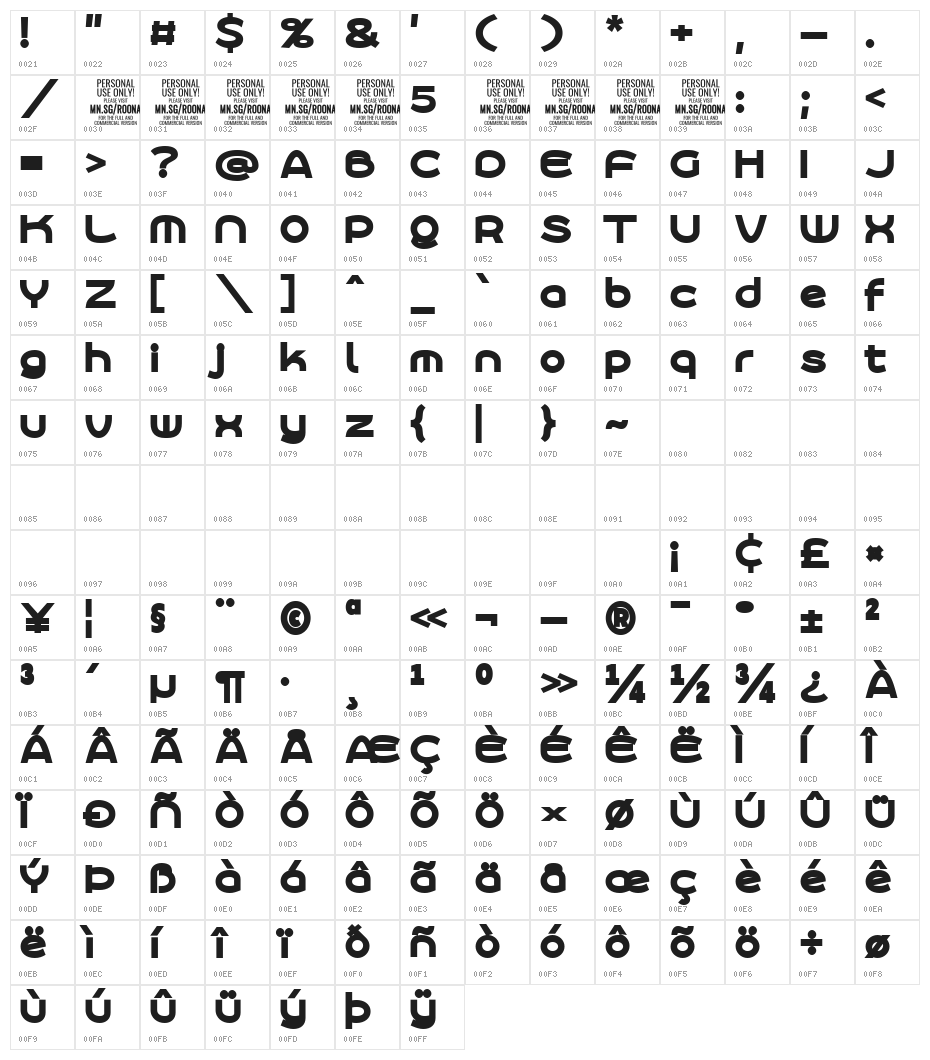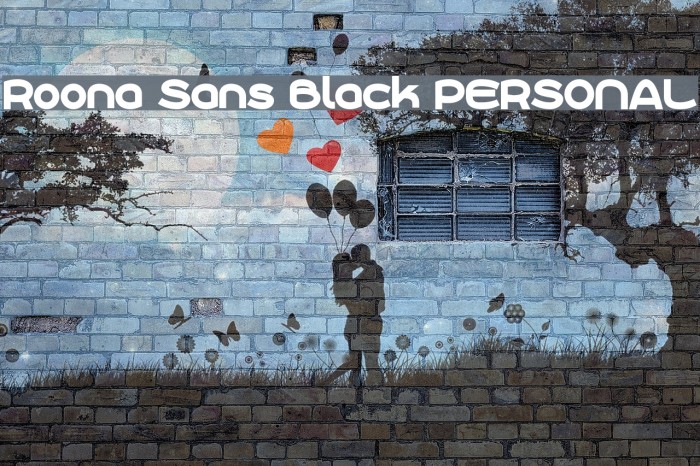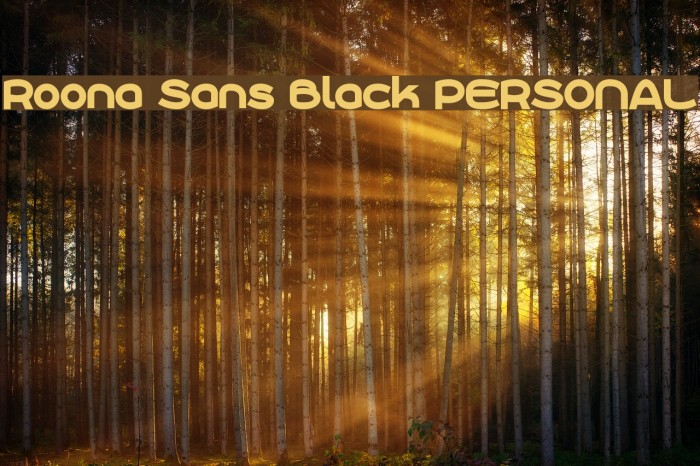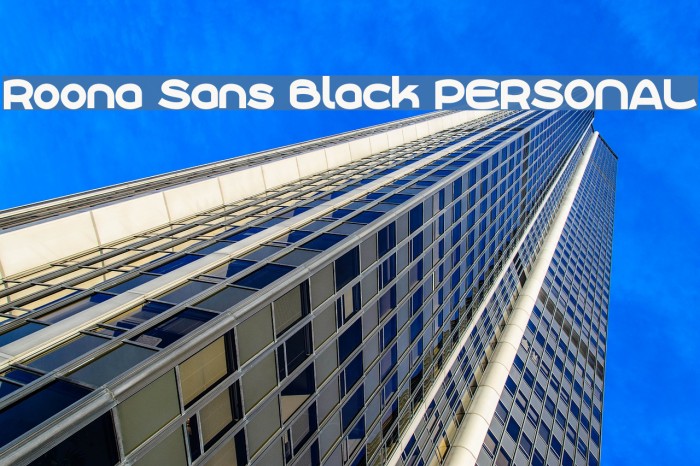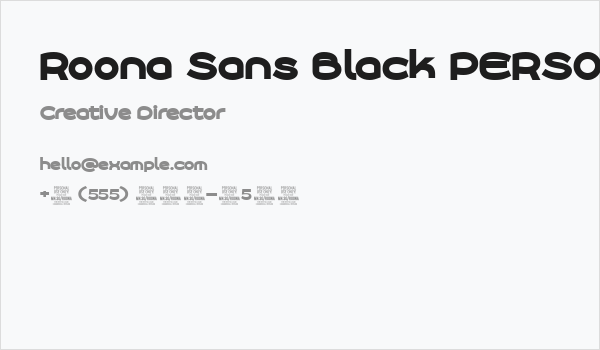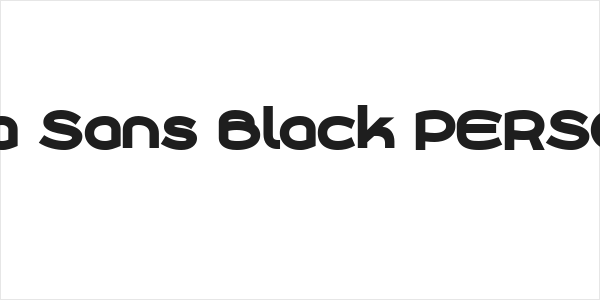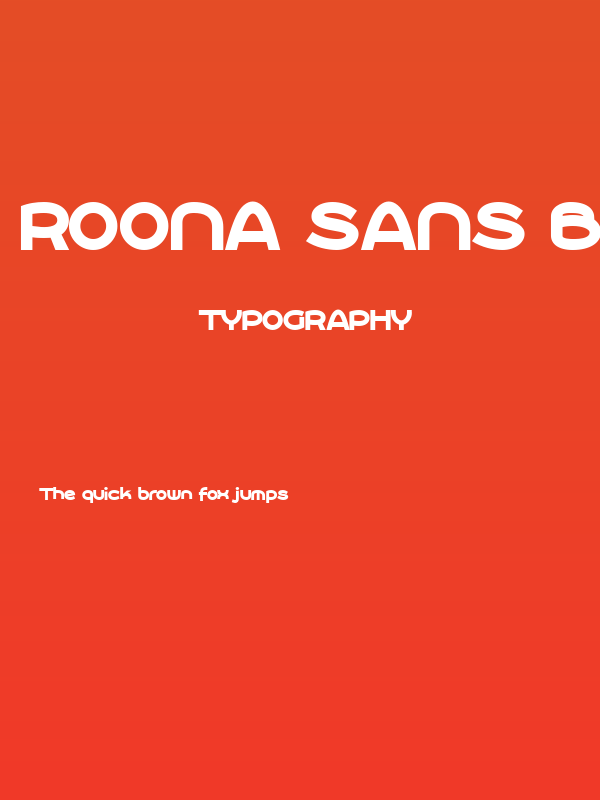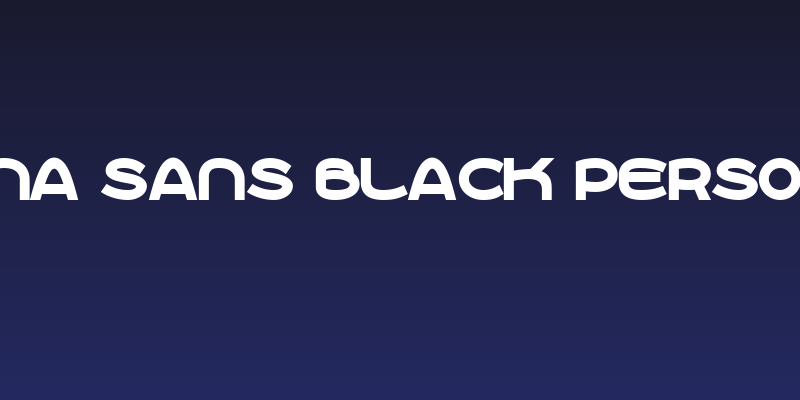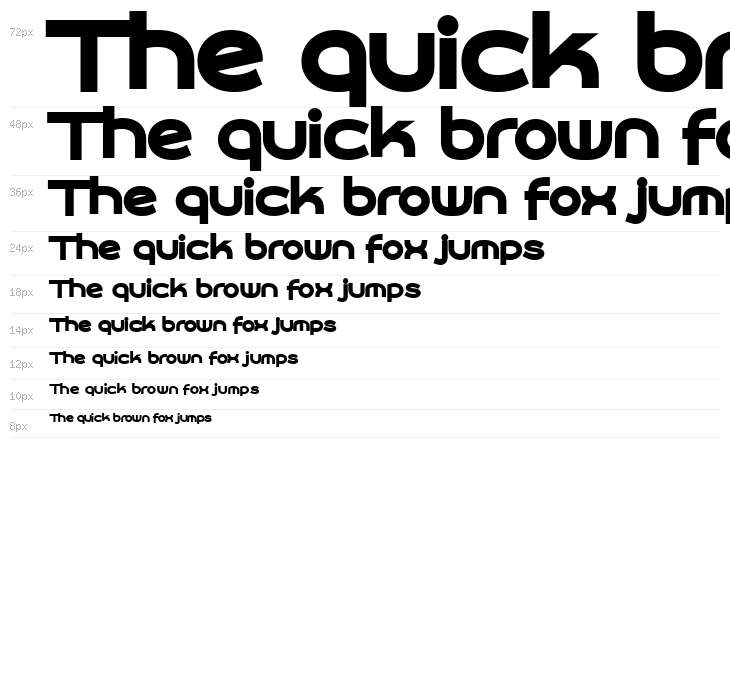
Roona Sans Black PERSONAL Font
Roona Sans Black PERSONAL Description
This font features a bold and modern design with a geometric and slightly futuristic feel. The characters are crafted with a uniform thickness, creating a strong and cohesive appearance. The rounded edges and smooth curves give it a friendly and approachable look, while the consistent stroke width adds to its contemporary style. The uppercase and lowercase letters are well-balanced, and the numerals and special characters maintain the same design ethos, ensuring versatility across different uses.
| Proposed Projects | Ideal for branding, advertising, posters, and digital media where a modern and bold statement is needed. |